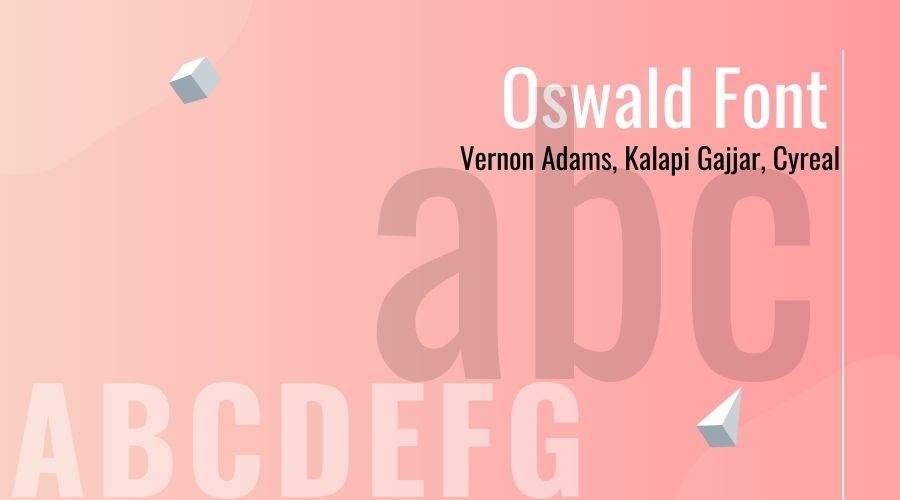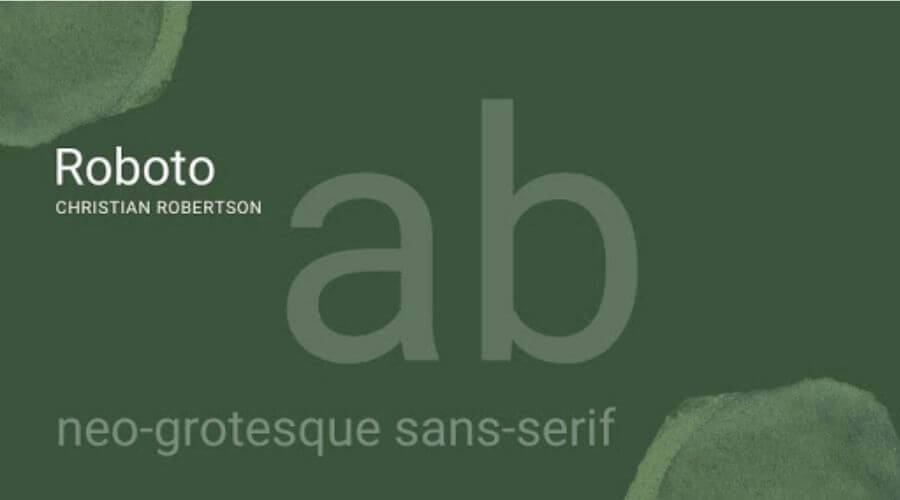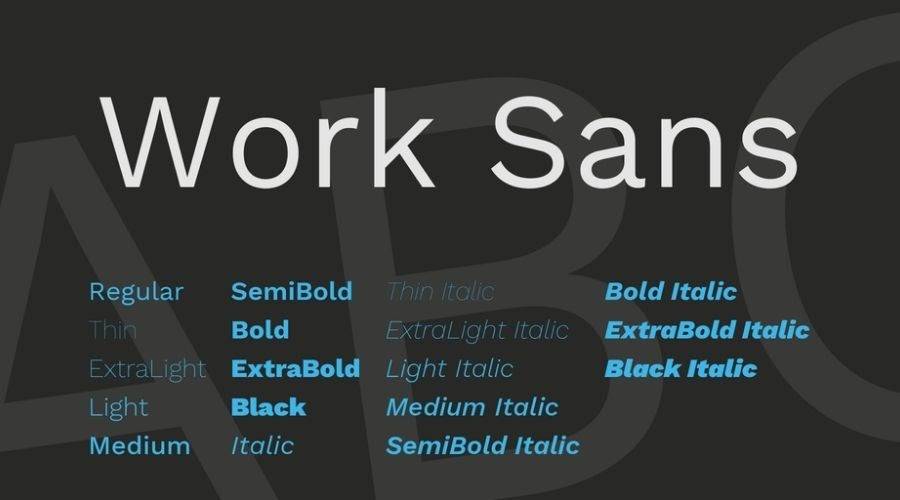
Free Fonts Similar to Helvetica Neue
Neue Helvetica or Helvetica Neue is an improved version of the Helvetica font. This has added a more structured integrated set of higher and wider fonts. It also has some other changes such as improved legibility, heavier punctuation marks, and increased spacing.
It was developed by Linotype Design Studio in 1983. Erik Spiekermann was the design consultant of Helvetica Neue. For its elegant and eye-catchy typeface, Neue Helvetica is now widely known and used font around the world.
Free Alternatives To Helvetica Neue
Liberation Sans
Liberation Sans is one of the fonts in the Liberation series. Liberation Sans is a Sans-Serif typeface designed by Steve Matteson and published through Ascender Corporation. This font is licensed under the SIL Open Font License, Version 1.1.
Roboto
Roboto is a neo-grotesque sans-serif typeface family developed by Google as the system font for its mobile operating system Android, and released in 2011 for Android 4.0 “Ice Cream Sandwich. Christian Robertson designed this font in 2011. Roboto is licensed under the Apache License, Version 2.0.
Archivo Narrow
Archivo Narrow is a Sans-Serif typeface designed by Omnibus-Type and published through google fonts. It was originally designed for highlights, headlines, and simultaneously in print and digital platforms. With its technical and aesthetic characteristics, Archivo Narrow is licensed under the Open Font License.
Work Sans
Designed by Wei Huang, Work Sans is a Sans-Serif typeface. With a huge language support and 19 styles, this is one of the best similar alternatives to Helvetica Neue. This font is also under the Open Font License and available through google fonts.
Oswald
Oswald is a free, open-source sans-serif typeface designed by Vernon Adams, Kalapi Gajjar, Cyreal and published through Google Fonts. This Font is based on classic gothic and grotesque styles of the late nineteenth and early twentieth centuries. It is totally a free font under the Open Font License.
Tex Gyre Heros Font Family
The TeX Gyre Heros family of sans serif typefaces is based on the URW Nimbus Sans L family dispersed with Ghostscript. The initial font, Helvetica, was created in 1957 by Max Miedinger together with Eduard Hoffman at the Haas type foundry. The constituent 8 faces (4 standard and also 4 condensed) have nearly 1250 glyphs each. This font family has some similarities with Helvetica Neue font and its free to use.
Inter Font
Here is another alternative font Inter. Inter is a variable font household meticulously crafted & created for computers. It’s a free google font. The Inter font project is led by Rasmus Andersson, a Swedish manufacturer of software applications living in San Francisco. Inter font includes a tall x-height to assist in the readability of mixed-case as well as lower-case message. A number of OpenType attributes are provided as well, like contextual alternates that readjust spelling depending upon the form of surrounding glyphs, slashed absolutely no for when you need to disambiguate “0” from “o”, tabular numbers, and so on.